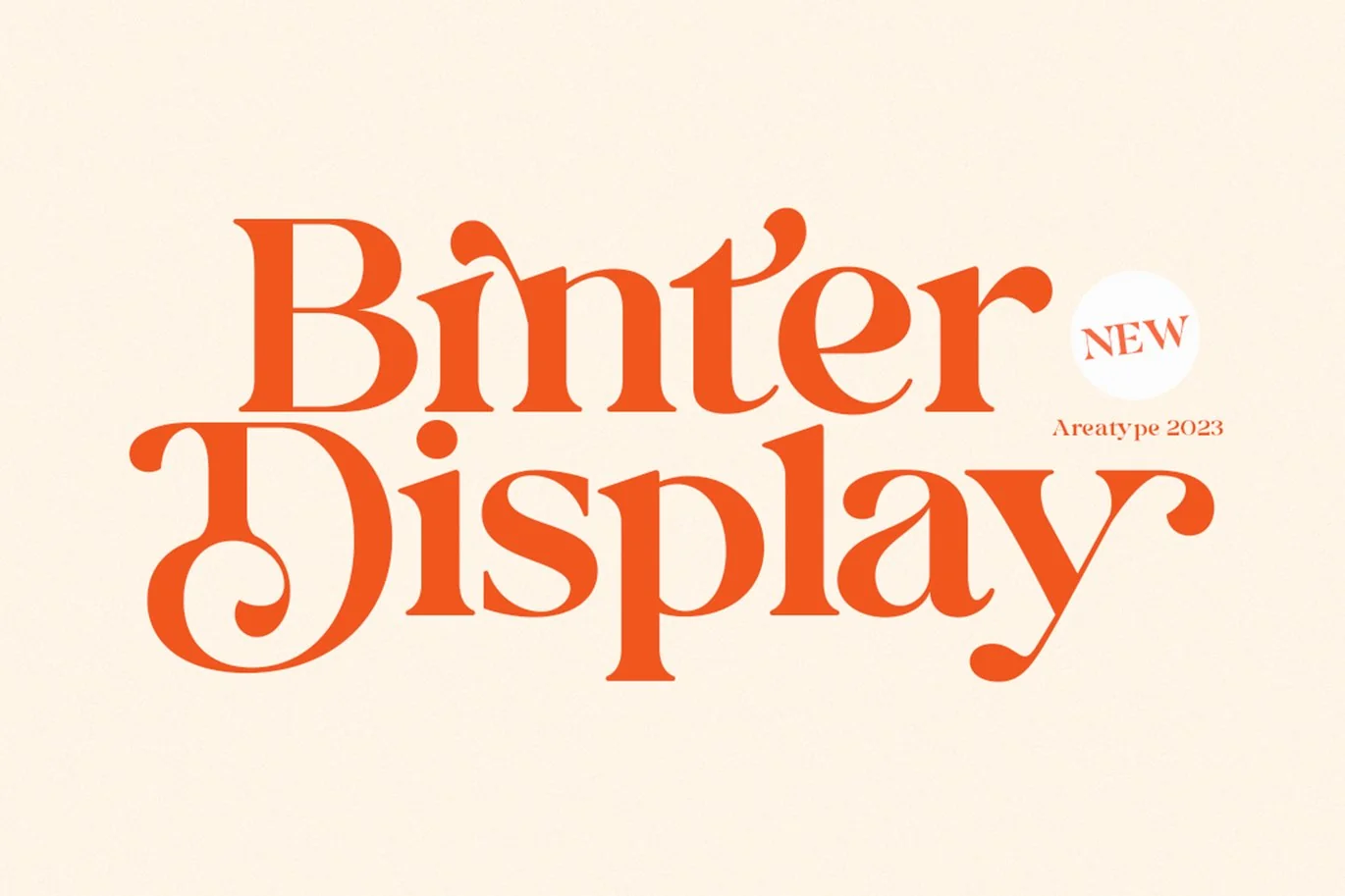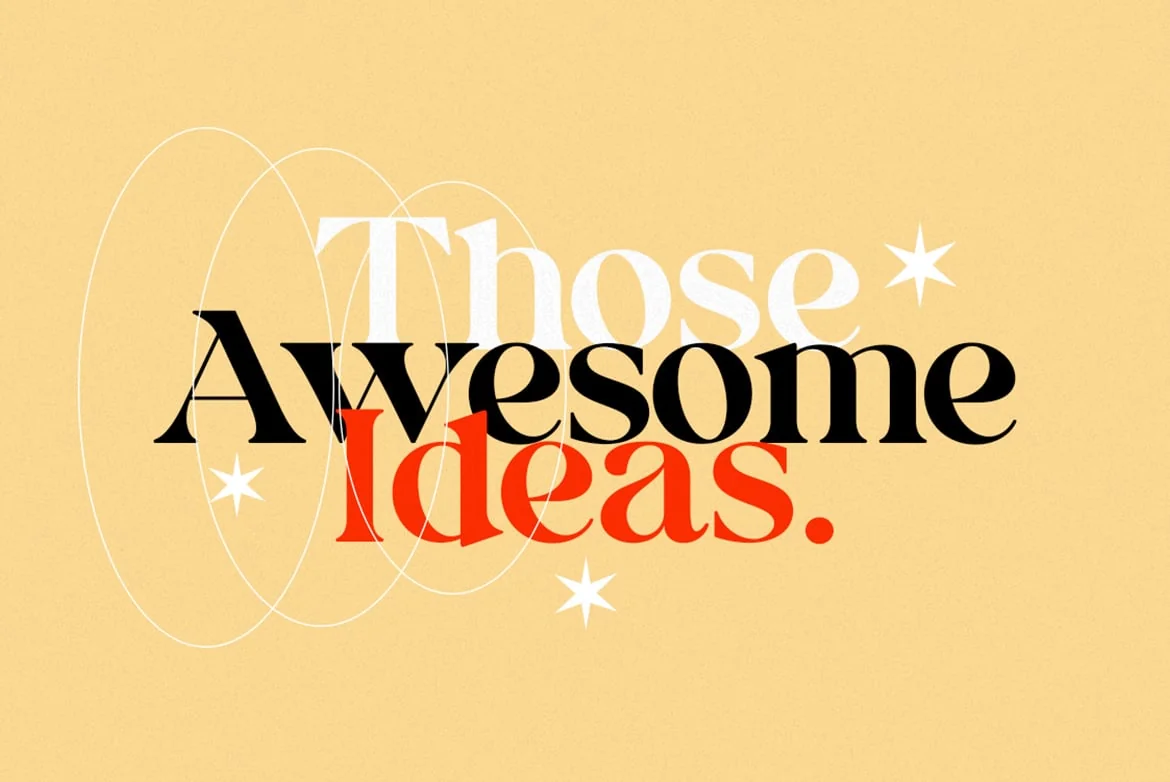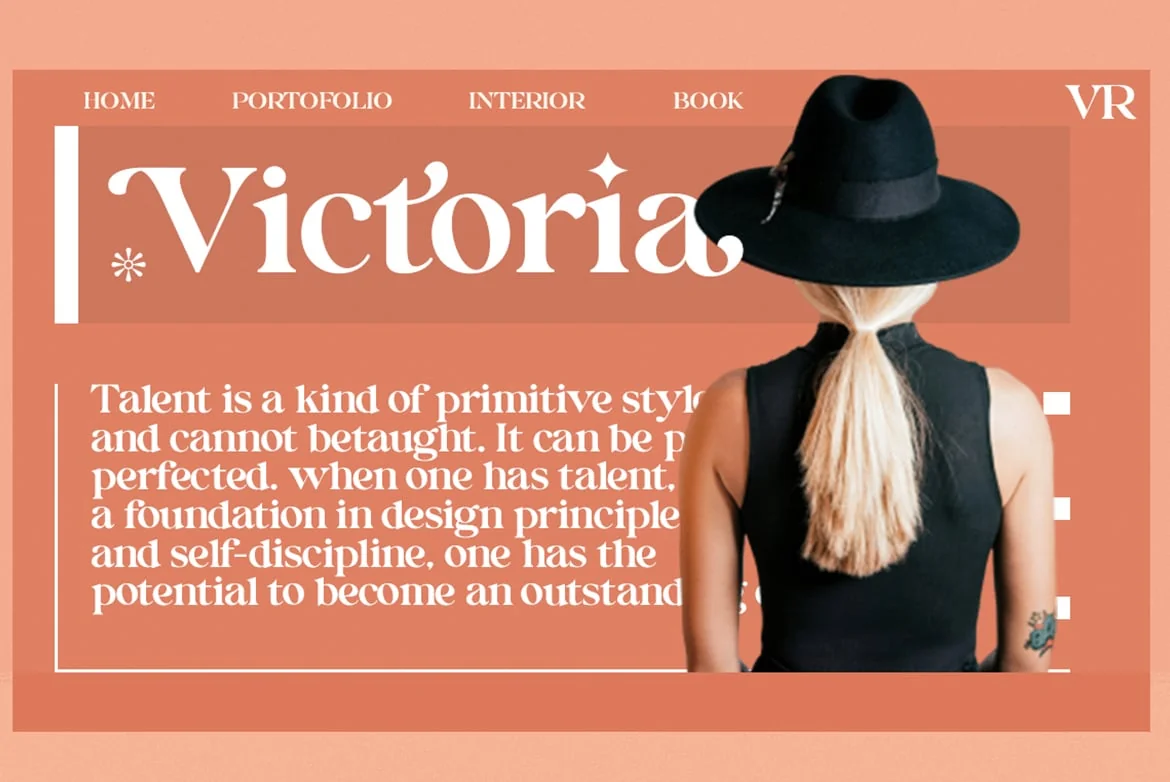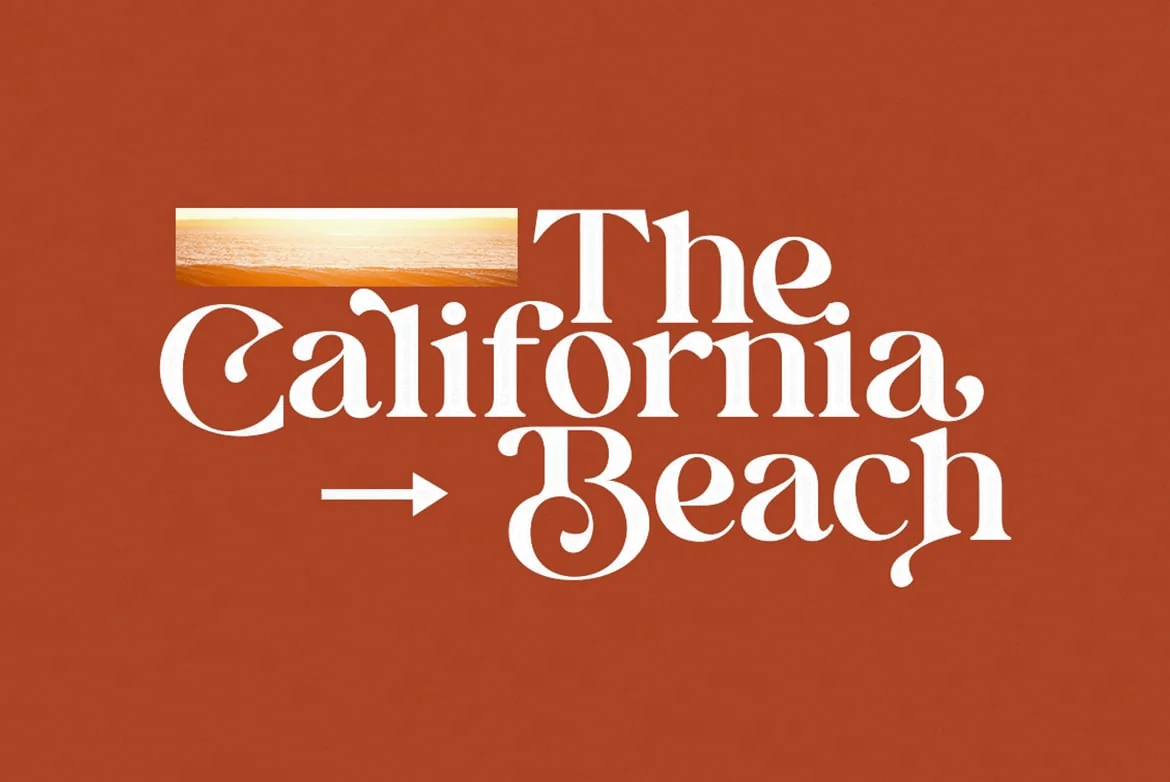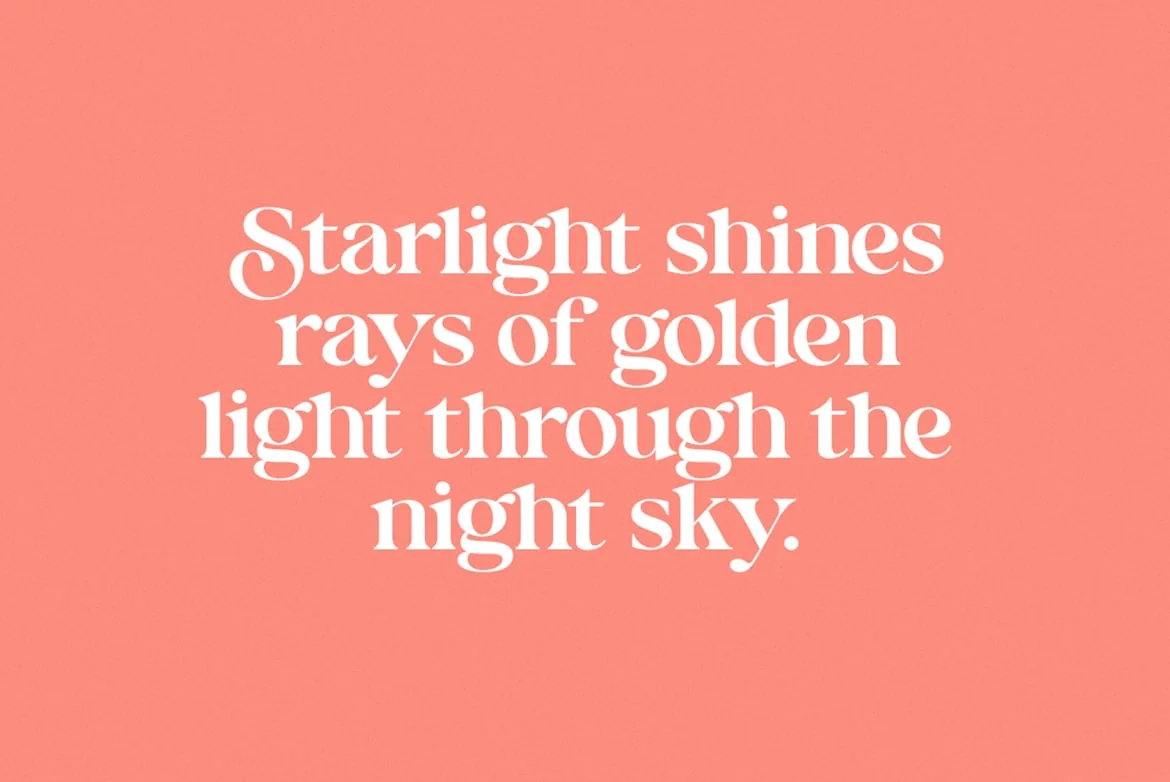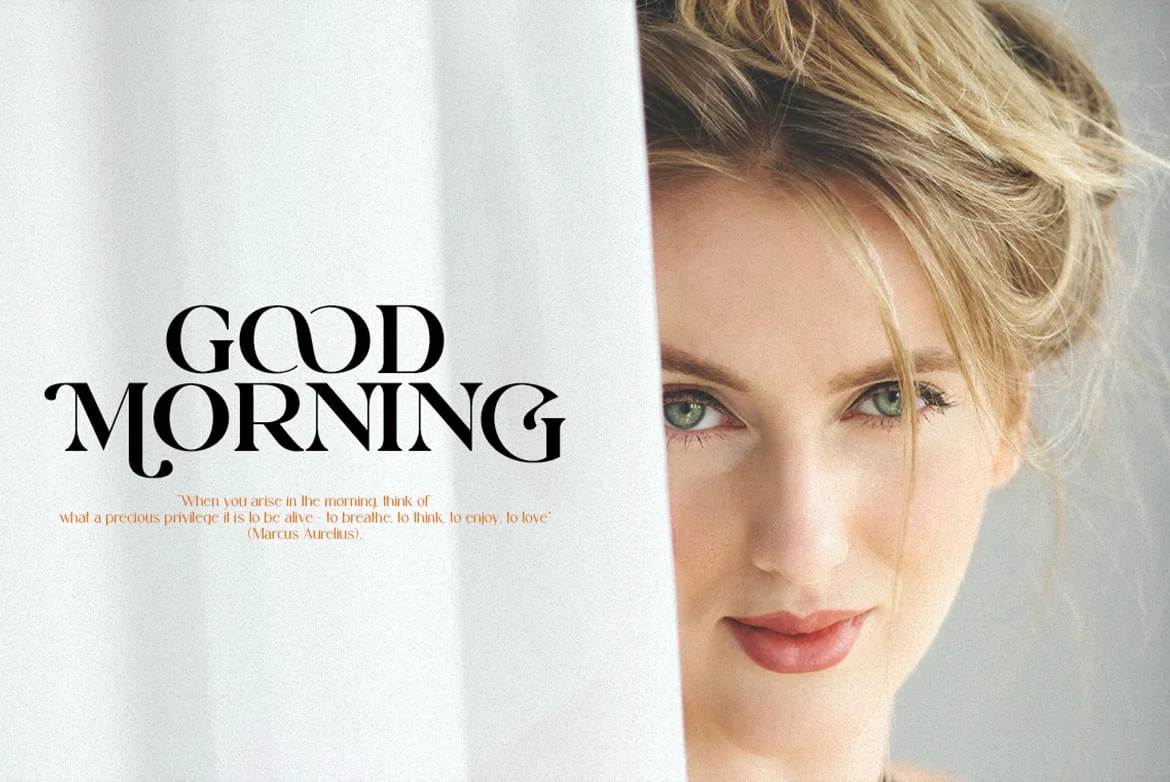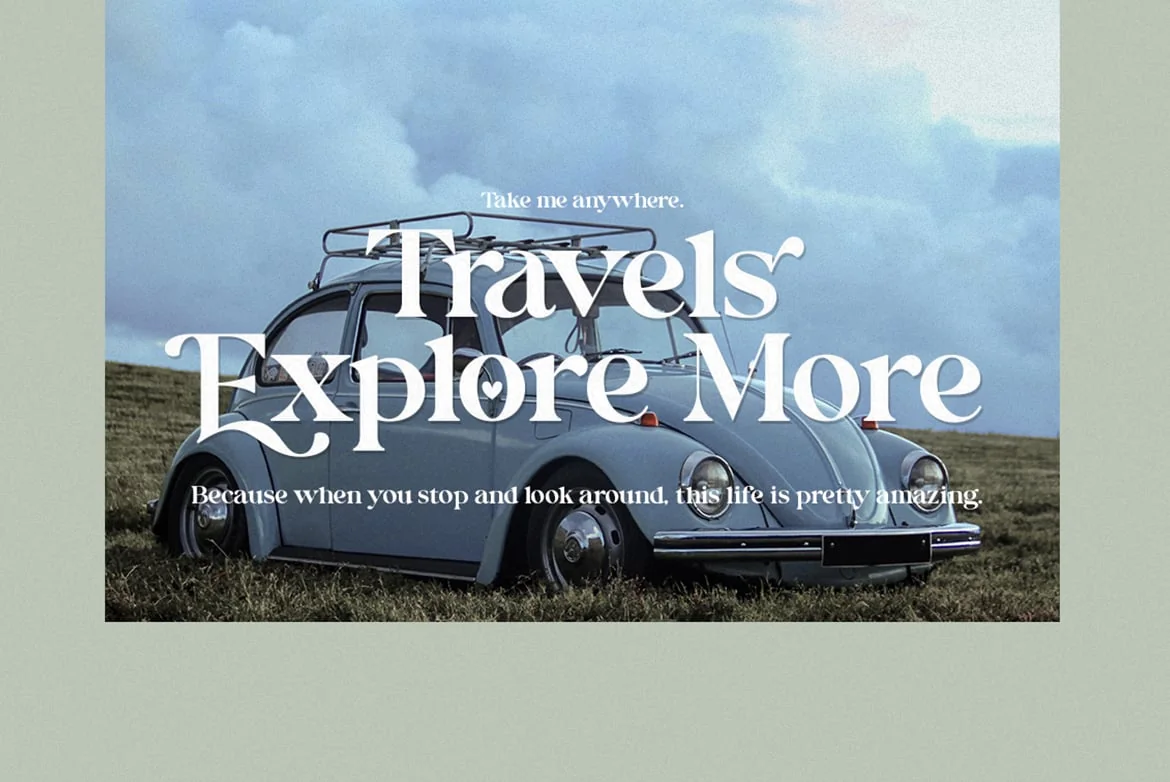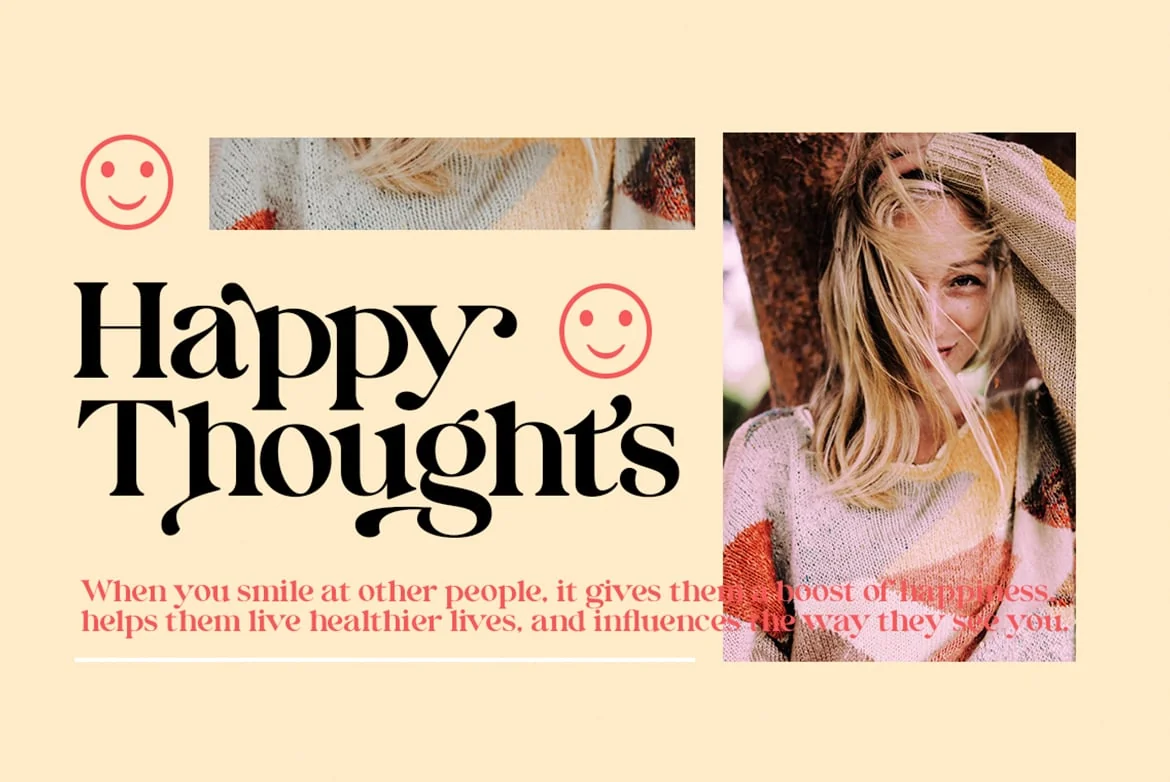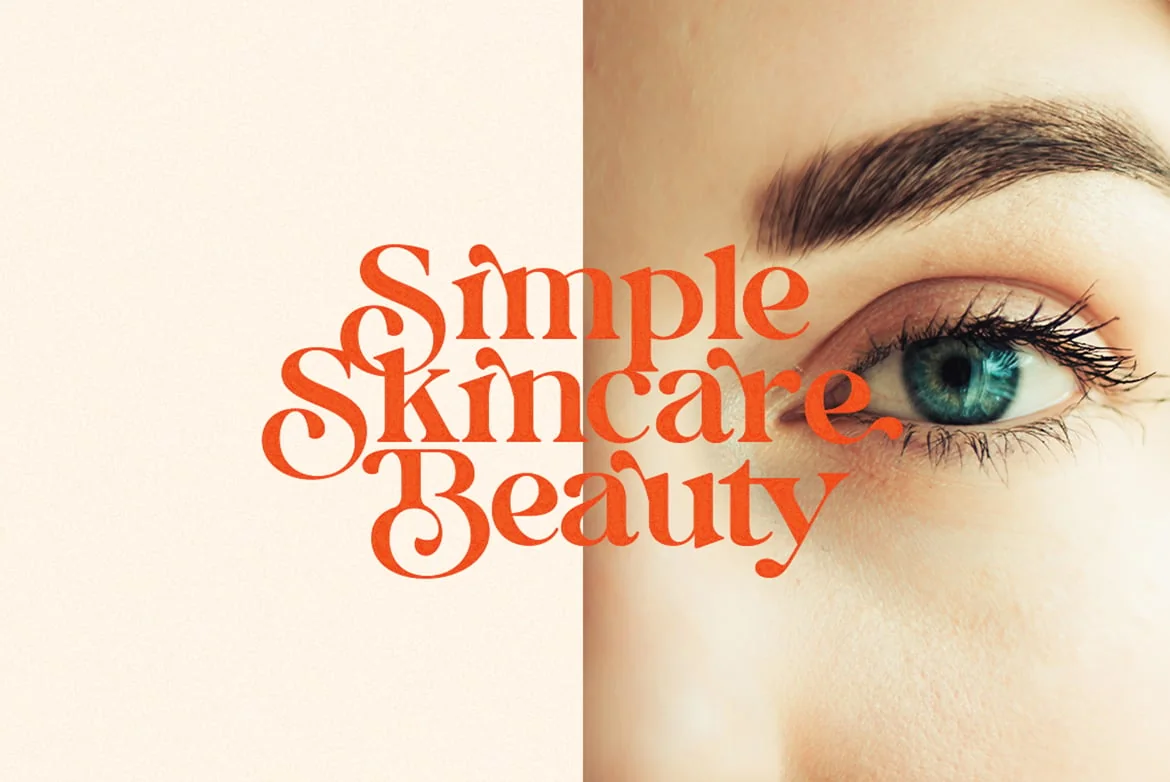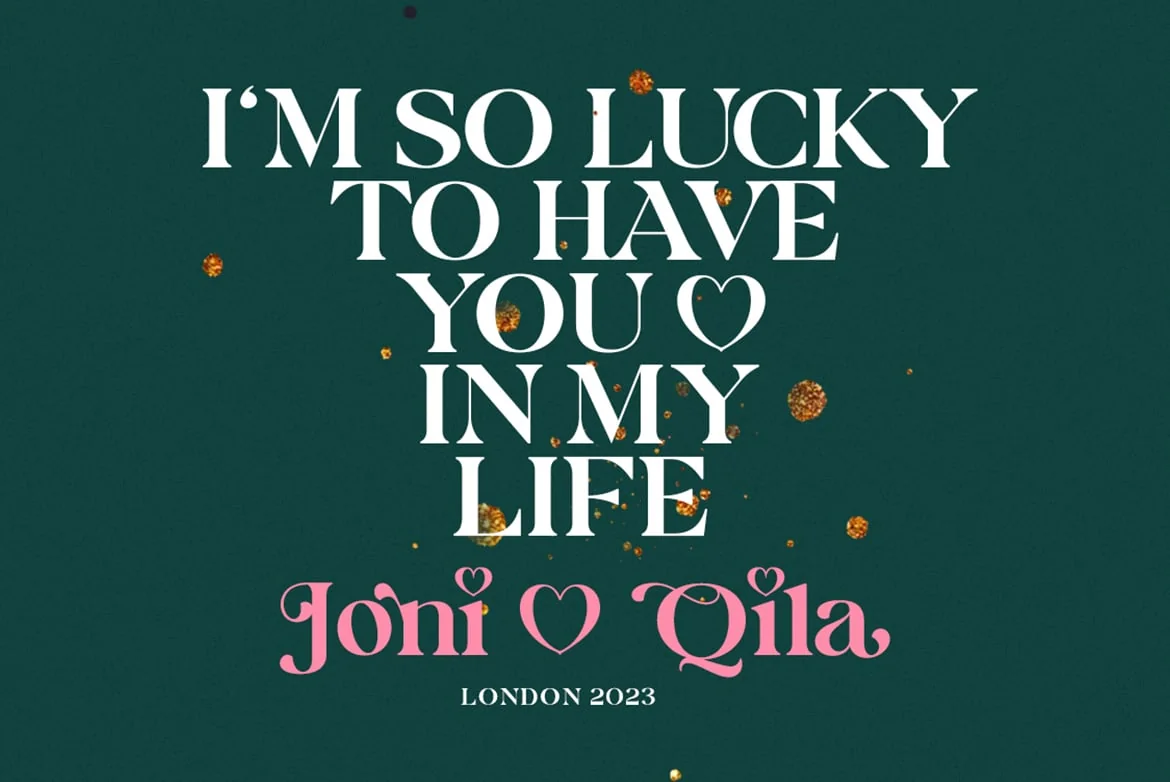
Binter Display Font
Binter Display is a very versatile font. perfect for magazine images, to wedding invitations, to branding, poster design, and more.
Stylistic Alternates & Ligatures